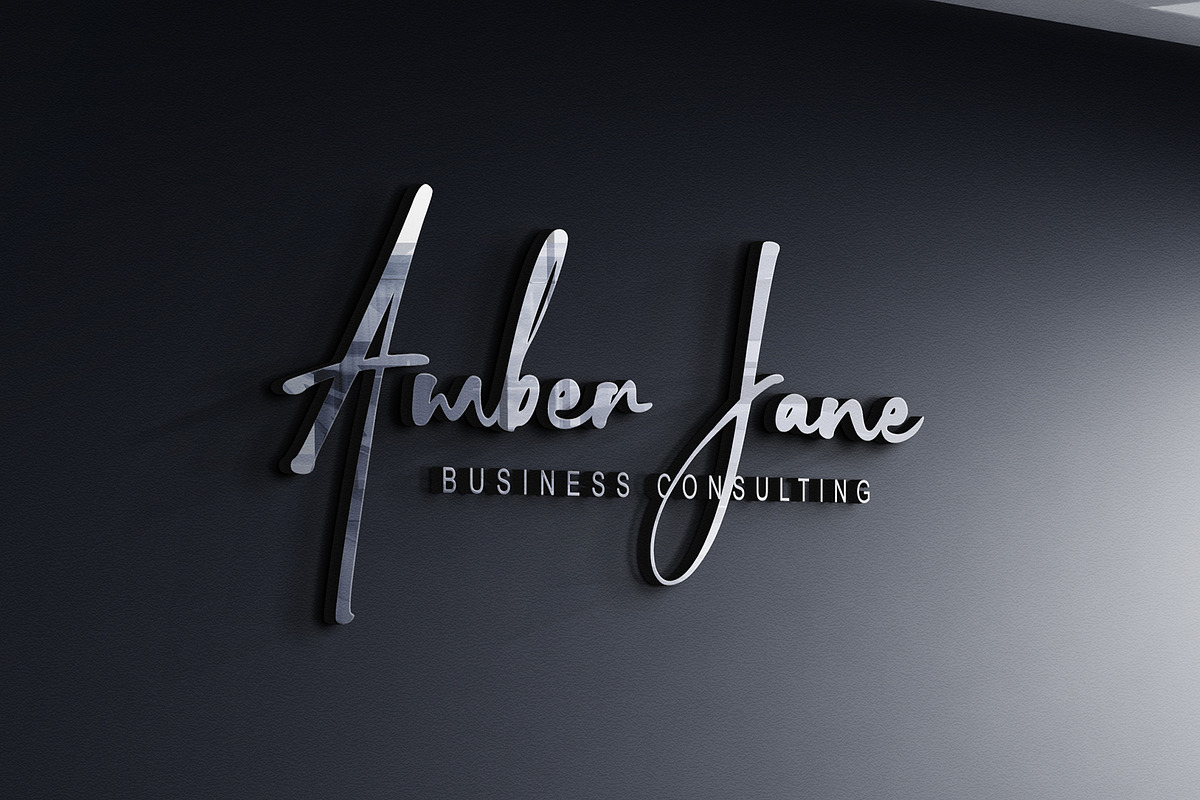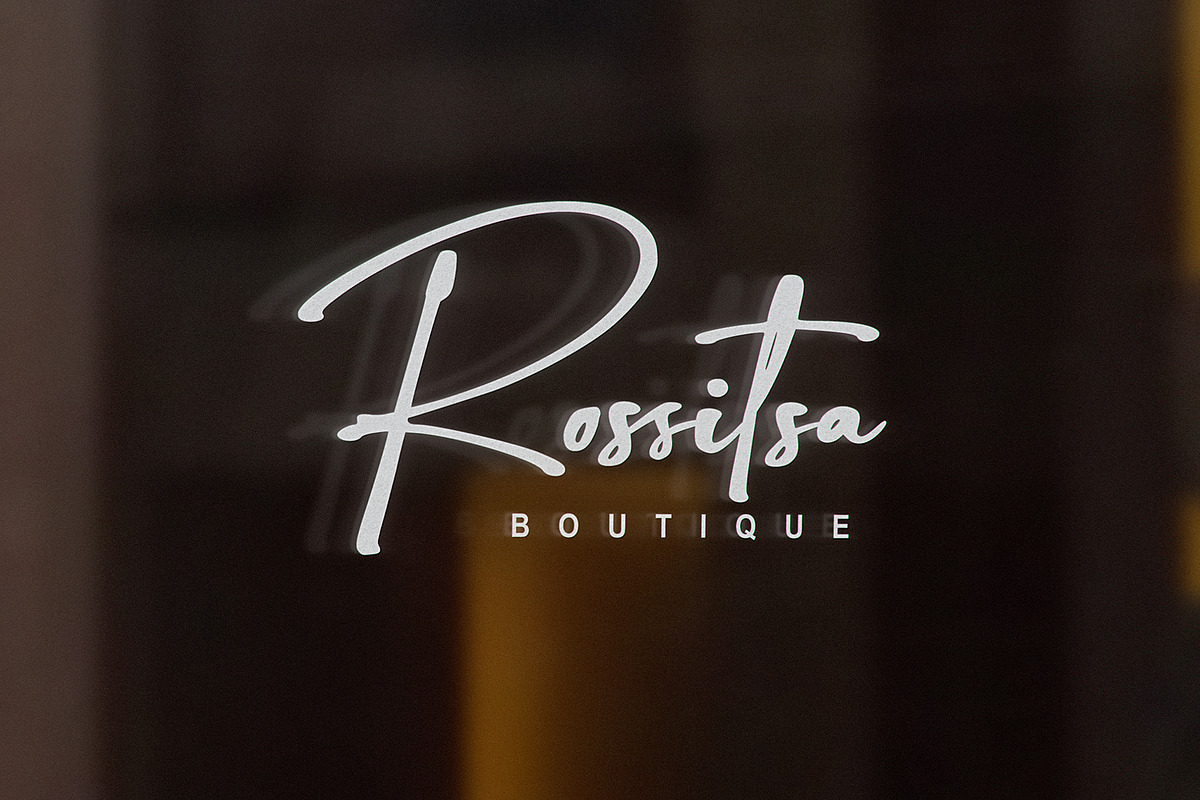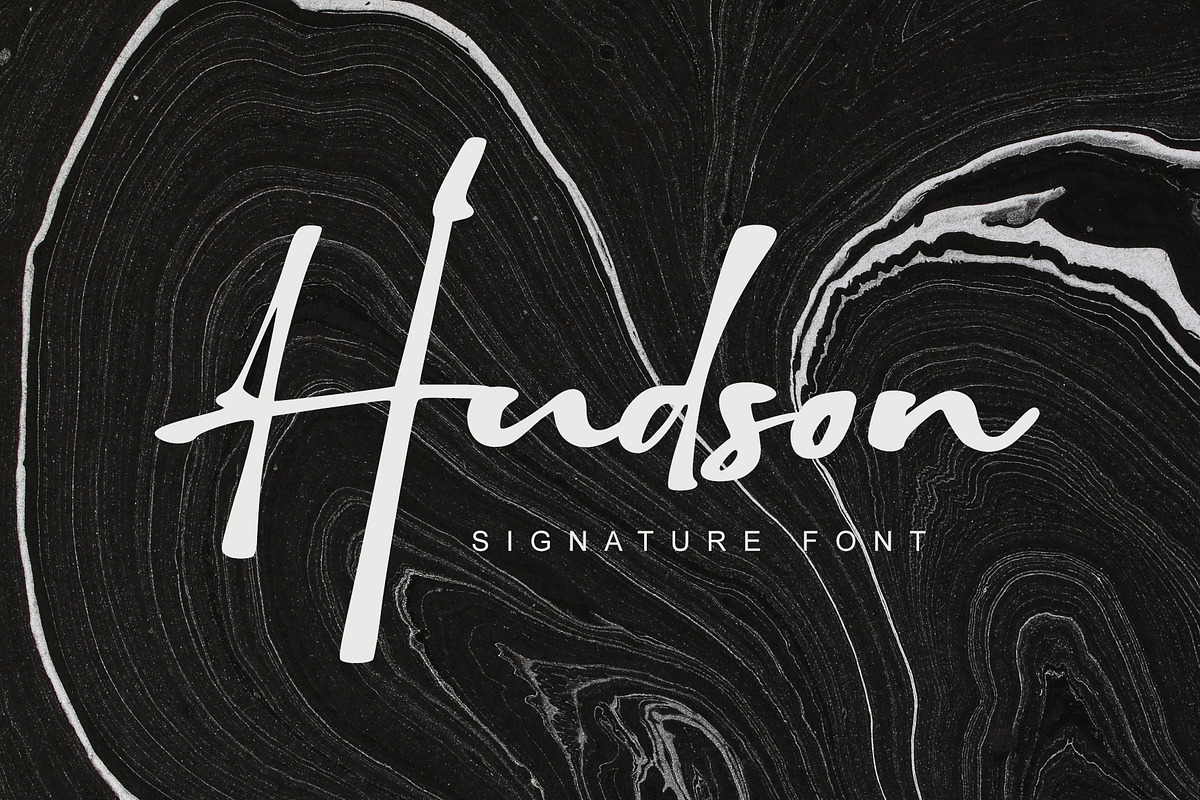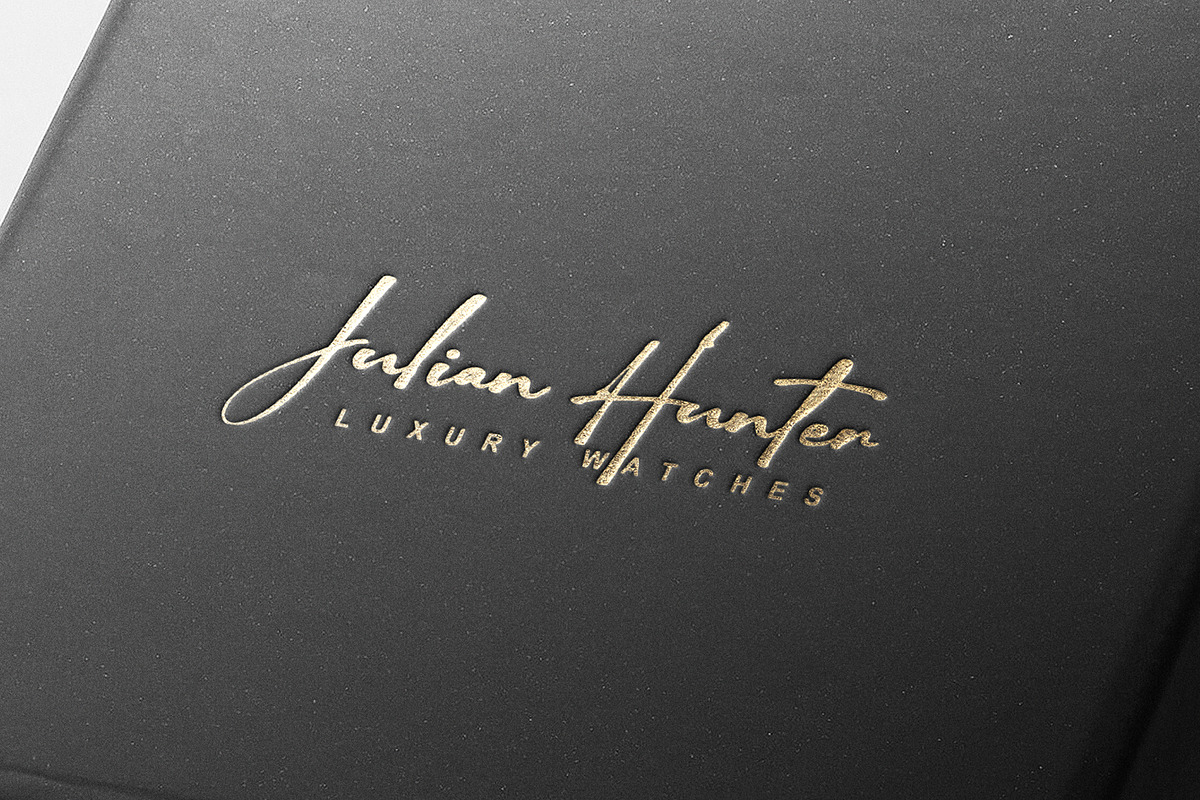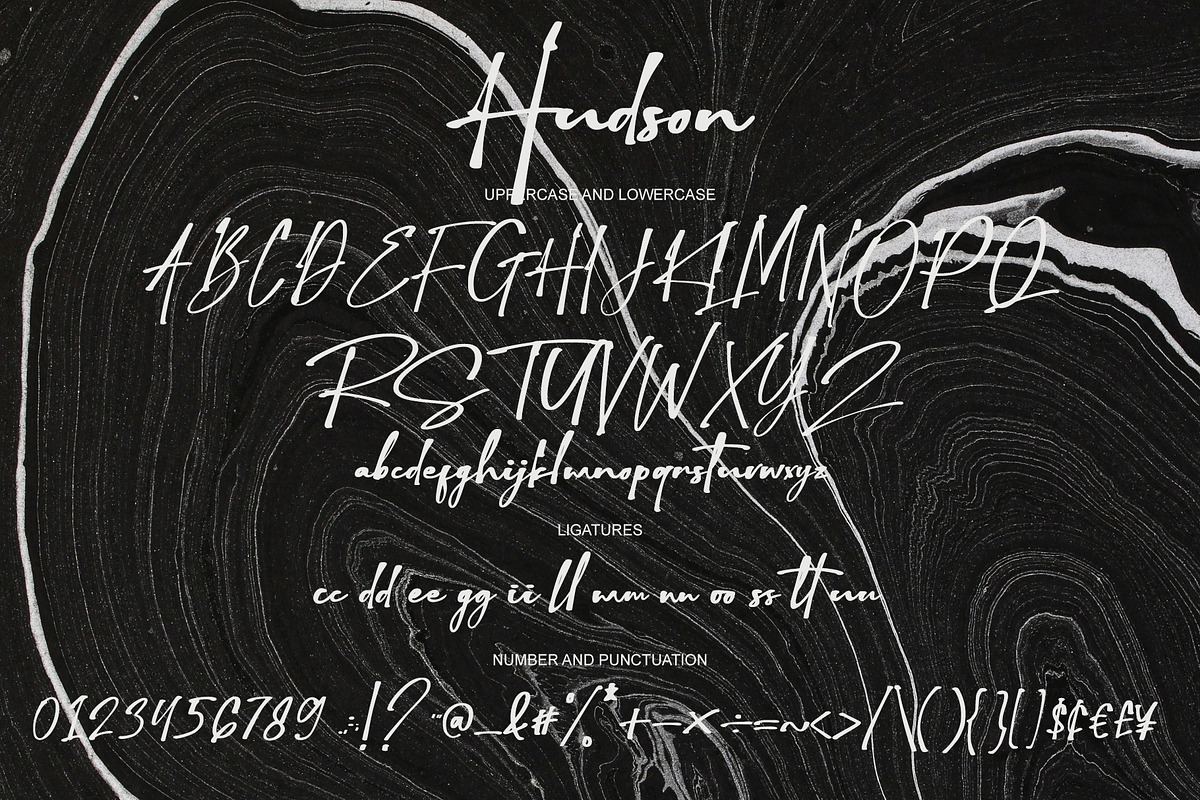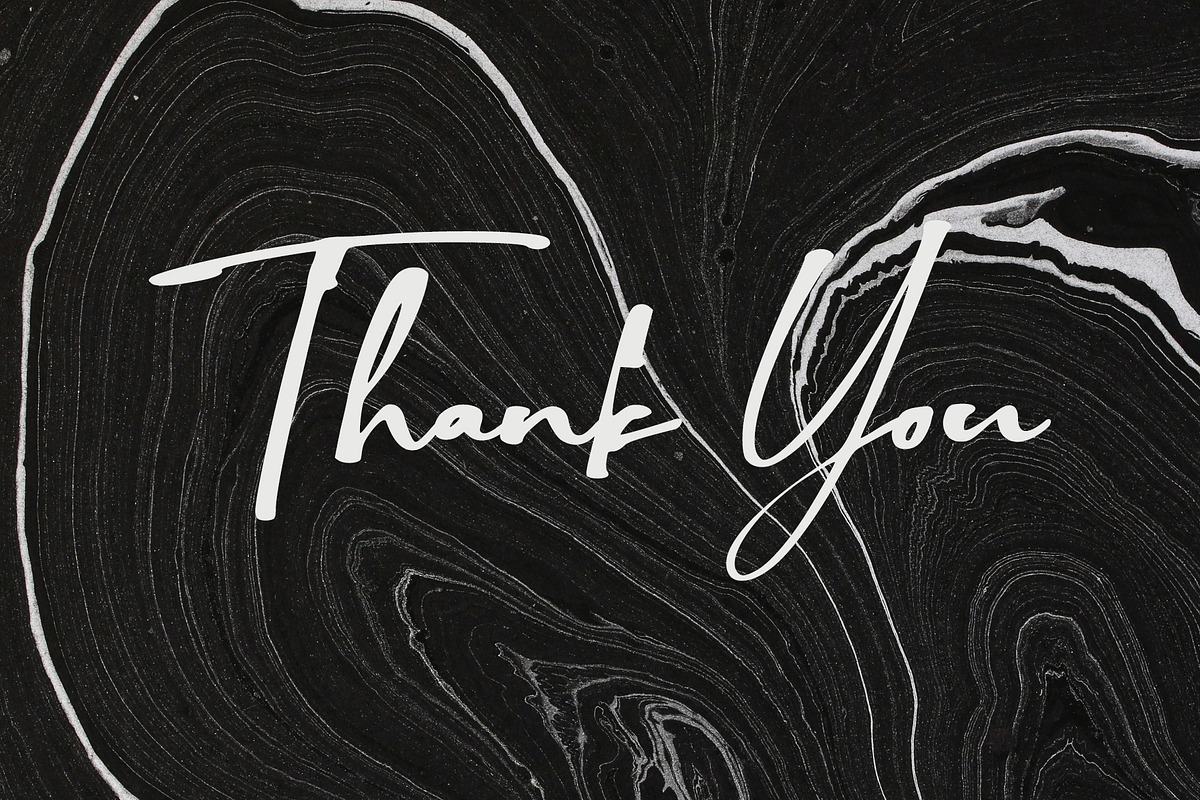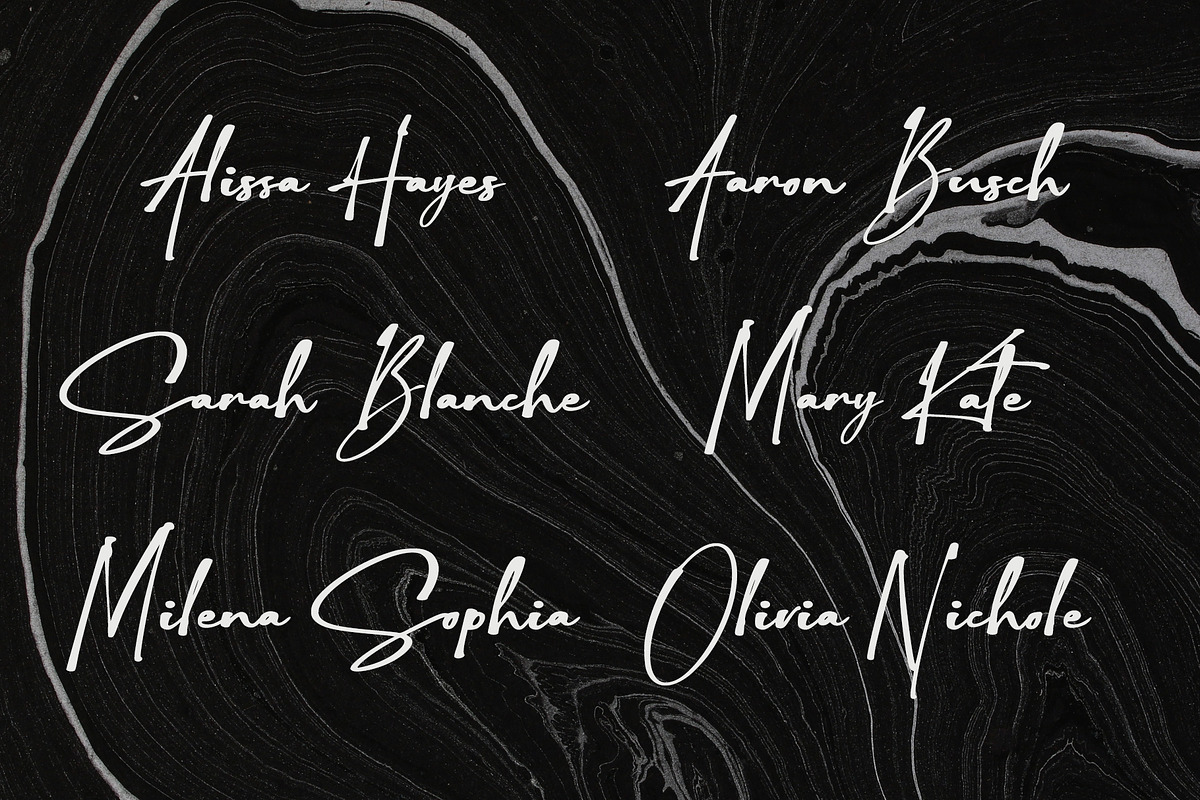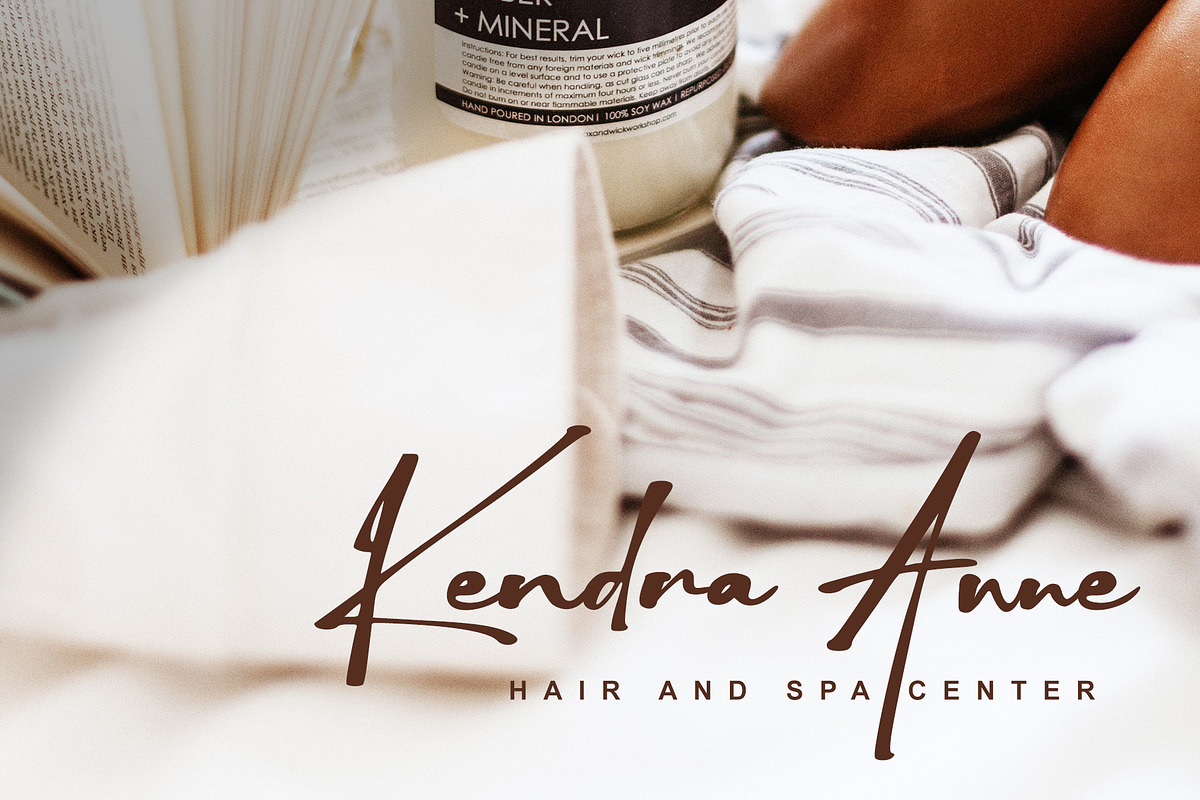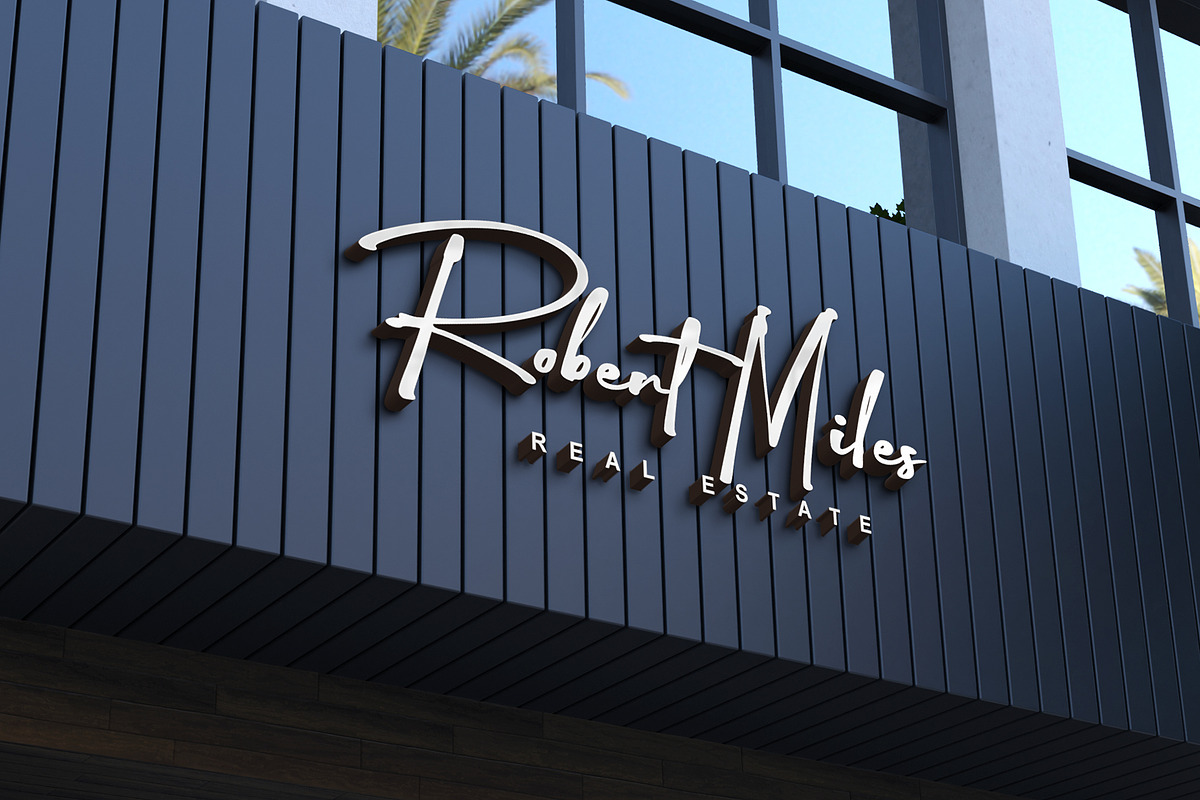
Hudson
Hudson is a handwritten font with natural style, this font is great for your next creative projects such as watermark on photography, album cover, logo, business card, and many other design project.
Hudson comes with uppercase letters, lowercase letters, multi lingual support, numbers and punctuation